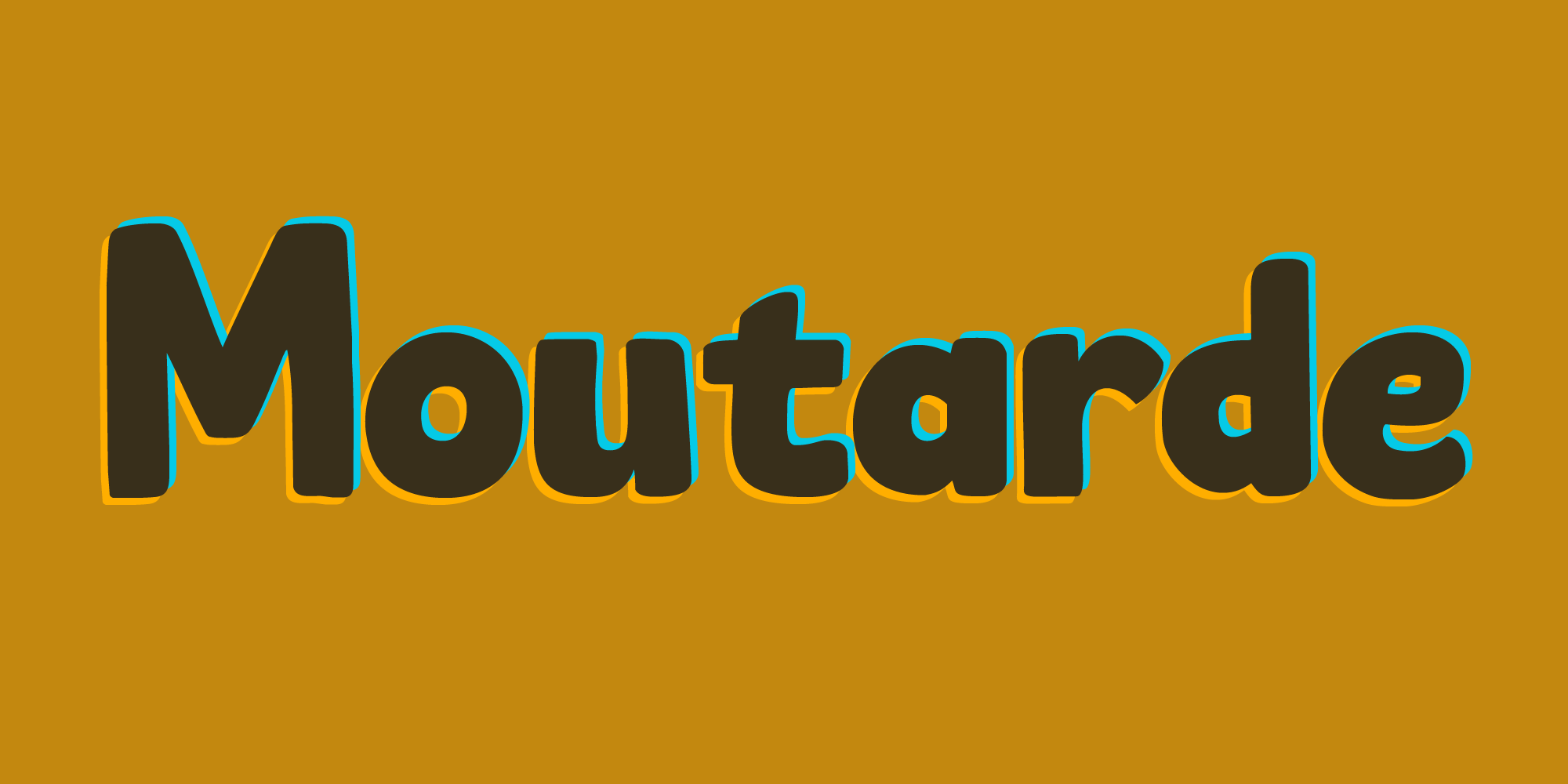
Moutarde Font is perfect for French bistro branding, gourmet restaurant menus, artisanal food packaging, European deli signage, culinary magazine headers, wine tasting event materials, sophisticated cooking class graphics, and authentic French cultural celebrations. Its refined European character makes it ideal for projects celebrating French culinary heritage and gastronomic excellence.
What makes Moutarde Font exciting is its exquisite ability to capture the sophisticated essence of French gastronomy through elegantly crafted letterforms that exude culinary refinement and European charm. The graceful construction features classic French typographic elements with gourmet flair that evokes the artistry of fine cuisine. This typeface embodies culinary sophistication and French elegance, making every design feel authentically European and gastronomically refined.
Moutarde Font family includes Regular, Bold, Light, Italic, Condensed, and Gourmet variations, providing designers with comprehensive tools for creating sophisticated French-inspired typographic compositions that celebrate culinary artistry.
Savor exceptional design with the sophisticated charm of Moutarde Font Free Download. This elegant typeface brings French culinary sophistication to any creative project, whether you're developing brand identities for gourmet establishments, crafting promotional materials for culinary events, or designing graphics for food-focused businesses. The font's French-inspired architecture and gastronomic presence make it essential for projects requiring authentic European appeal. Moutarde Font perfectly captures the essence of French culinary culture while ensuring optimal readability across all gourmet applications. Its refined character forms and cuisine-inspired design language make it ideal for brands seeking to communicate culinary excellence and European sophistication, delivering memorable results that resonate with audiences who appreciate fine dining, French culture, and the timeless art of exceptional gastronomy that defines authentic French culinary traditions.